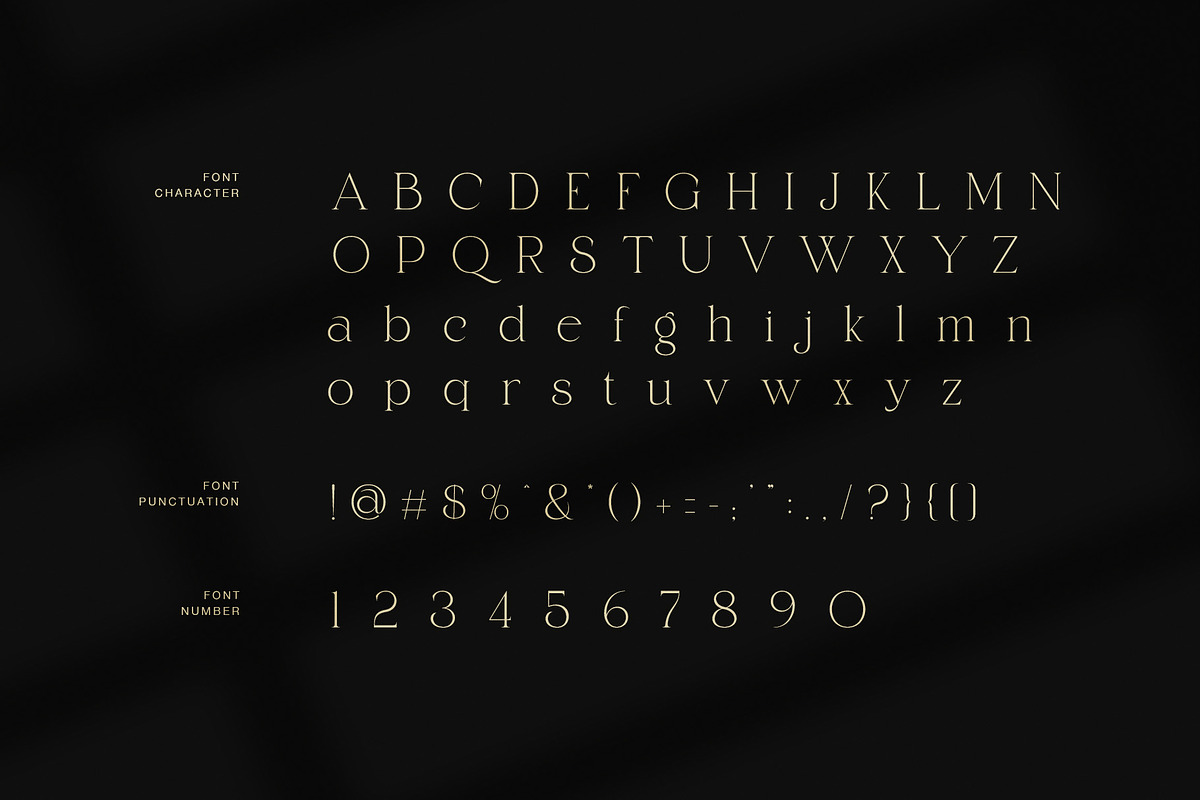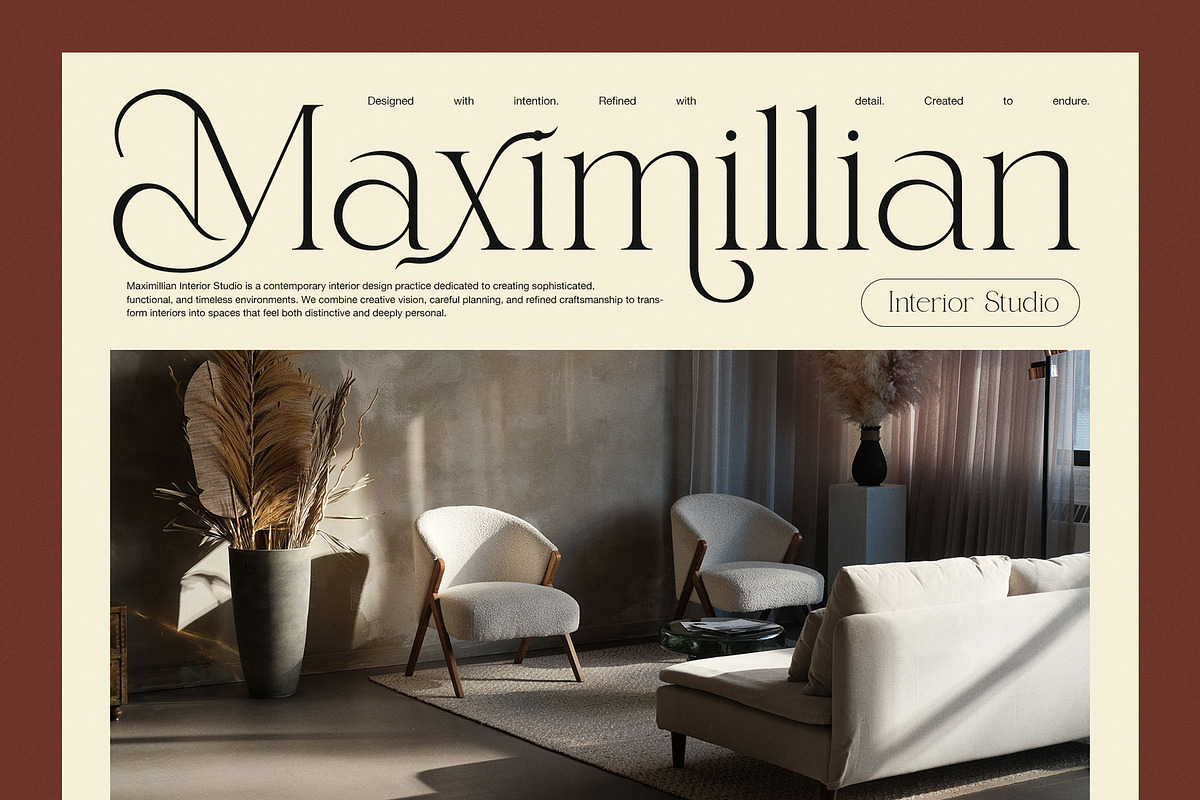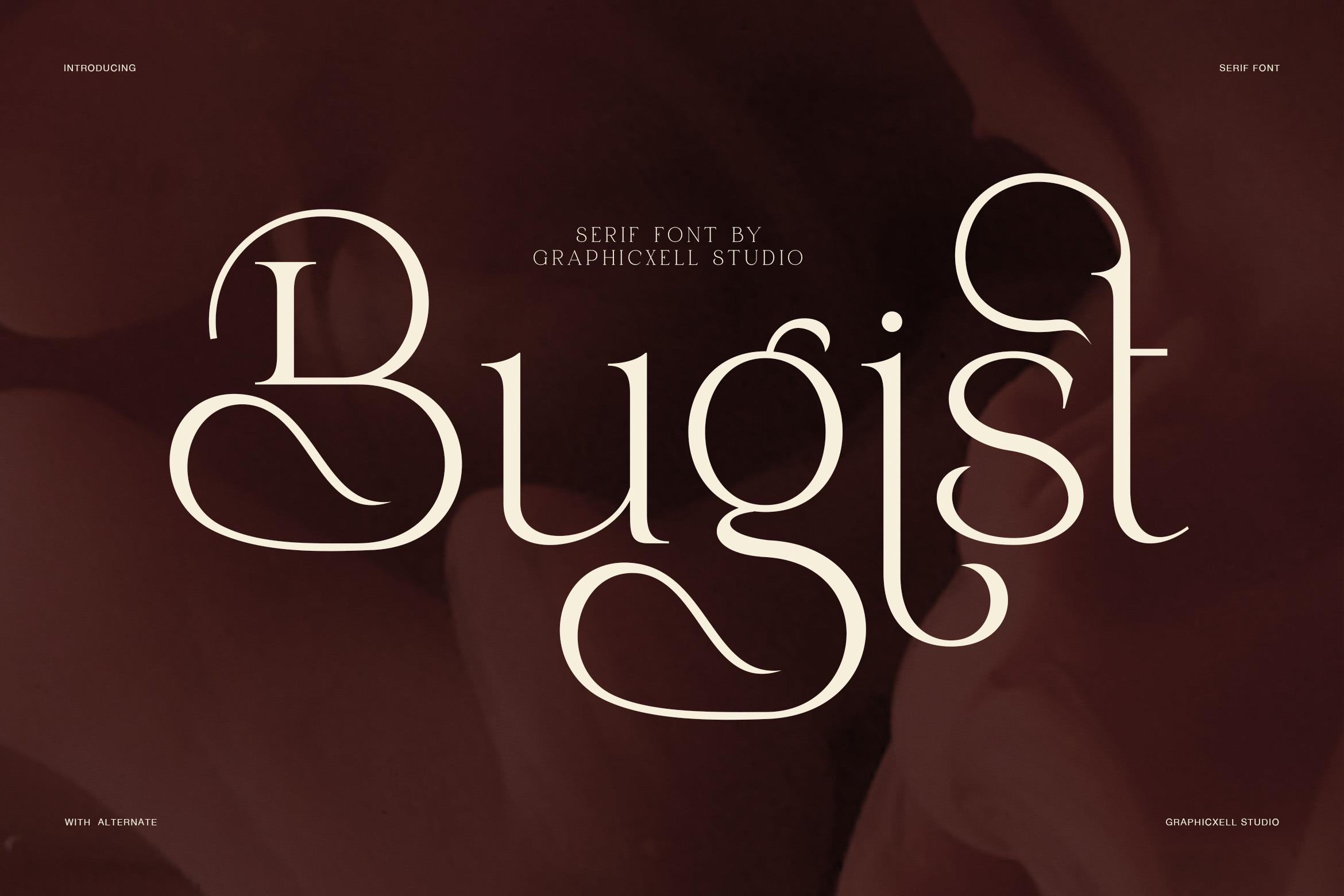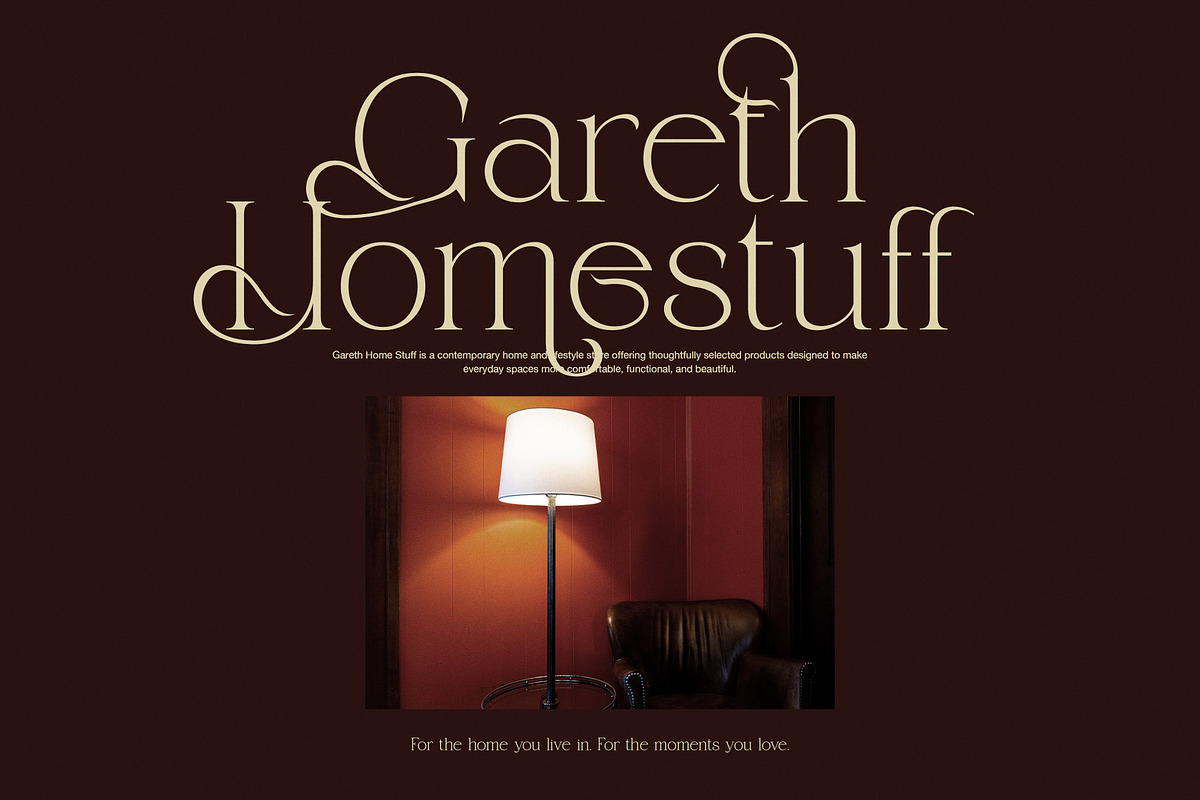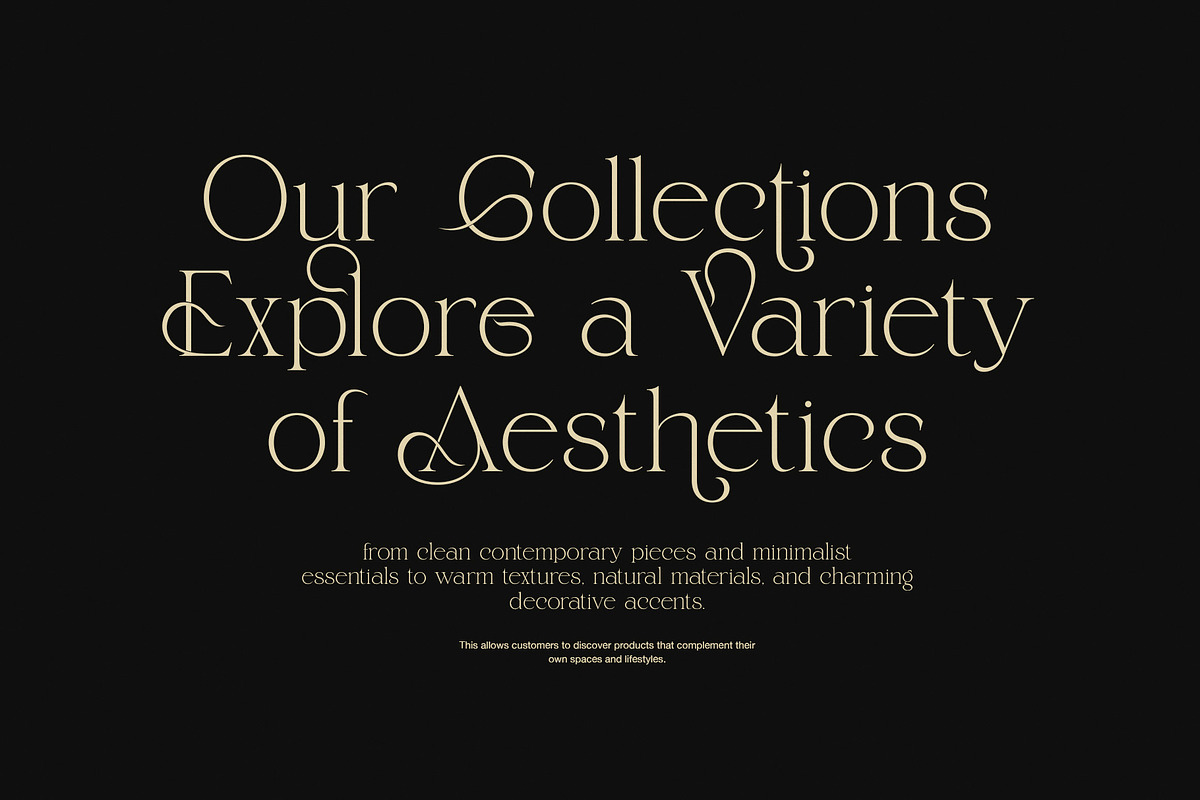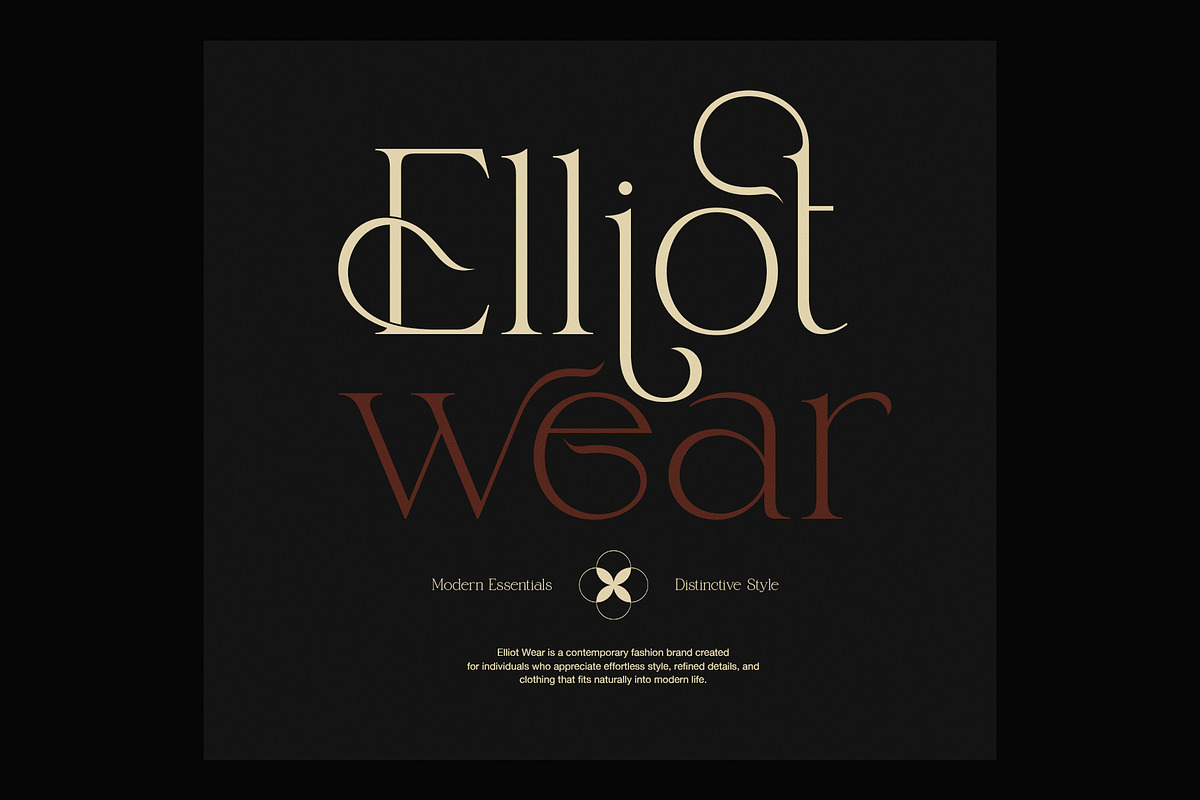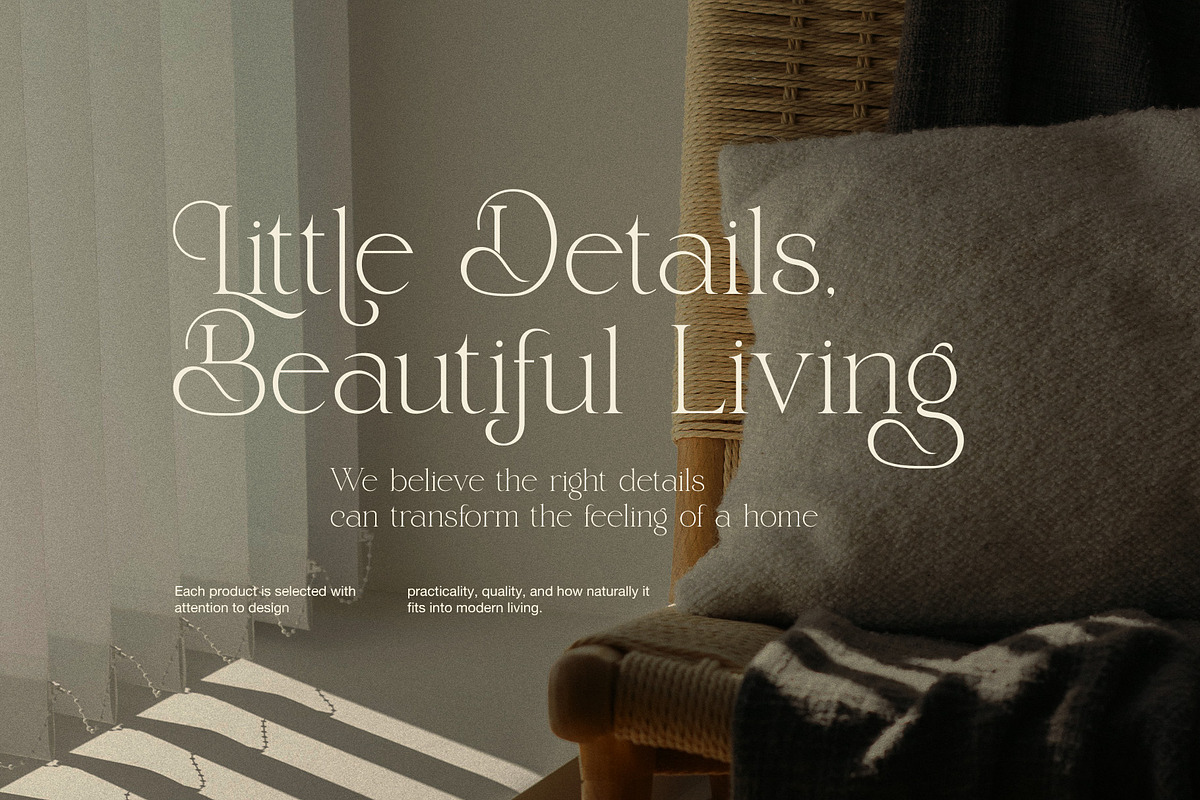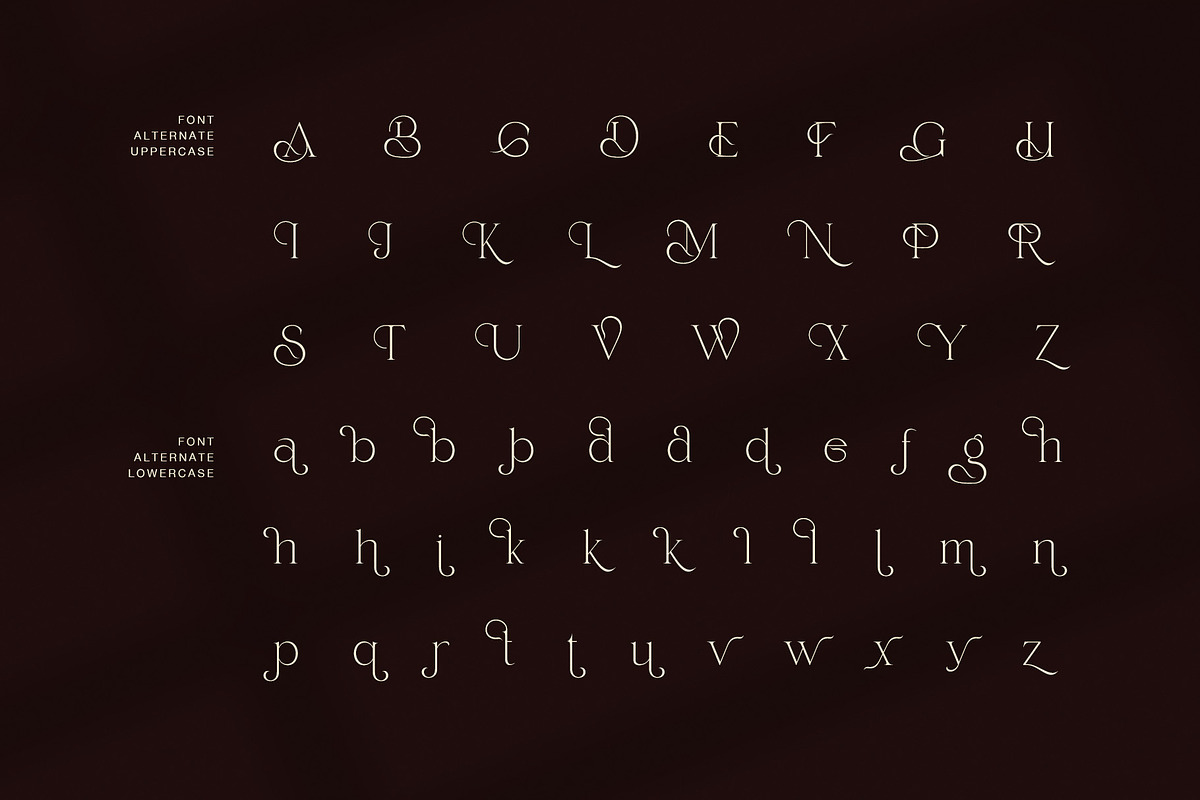
Bugist Elegant Serif Font
Bugist is a refined modern elegant serif font designed around contrast, delicate curves, and distinctive letter details. Its thin strokes and graceful proportions create a polished look, while the flowing terminals add a subtle decorative character. As a result, Bugist feels both contemporary and timeless.
The most noticeable feature is its elegant contrast between fine hairlines and slightly stronger vertical strokes. This gives the typeface a fashion-led appearance without making it overly ornate. In addition, several letters include beautiful curved details that create a custom lettering feel. These details become especially effective when the font is used at large display sizes.
Designed for Elegant Visual Identity
Bugist works particularly well for projects that need a sophisticated and modern tone. For example, you can use it for:
Fashion and clothing brands
Luxury and lifestyle identities
Interior design studios
Editorial layouts and magazines
Beauty and skincare branding
Boutique logos
Wedding stationery
Product packaging
Art and creative portfolios
Social media campaigns
Moreover, its clean structure makes Bugist suitable for both minimal and expressive layouts. A simple wordmark can highlight its fine proportions, while larger headlines can showcase its graceful curves and distinctive letter shapes.
Refined Alternates
Another key feature is the collection of uppercase and lowercase alternate characters. These alternates introduce additional curved strokes, loops, and ornamental forms. Therefore, designers can create more personalized typography without relying on extra decorative graphics.
For instance, an alternate character can be used within a brand name to create a subtle signature detail. Meanwhile, the standard characters remain clean enough for supporting headlines and short statements.
Bugist also performs beautifully in high-end visual settings. Its elegant forms pair naturally with neutral colors, editorial photography, textured backgrounds, and spacious layouts. Consequently, it can bring a premium feeling to branding while keeping the overall design refined.
Finally, Bugist is a strong choice for designers looking for a modern serif with a graceful personality. It balances delicate typography with expressive alternates, making it useful across fashion, beauty, interiors, lifestyle, editorial, and luxury branding. The font files include TTF, OTF, and WOFF formats, giving you flexible options for different design and web projects.